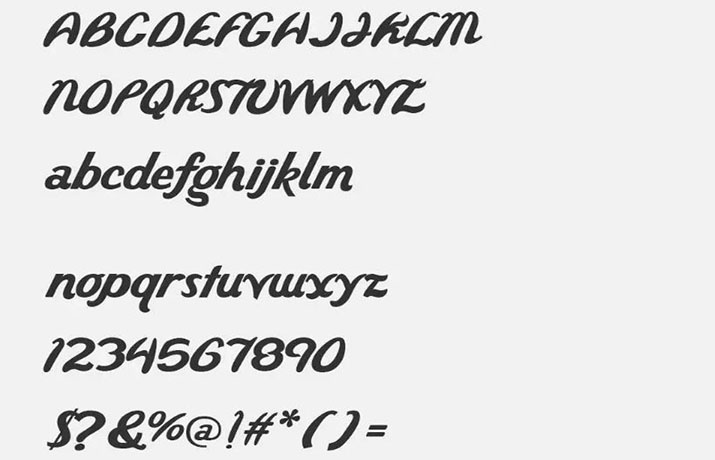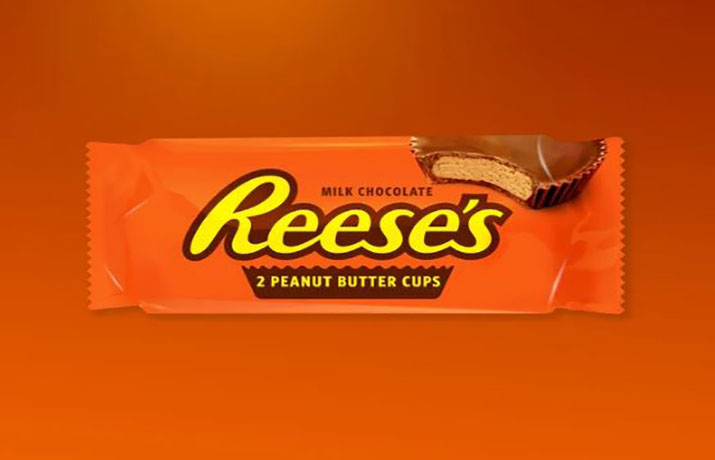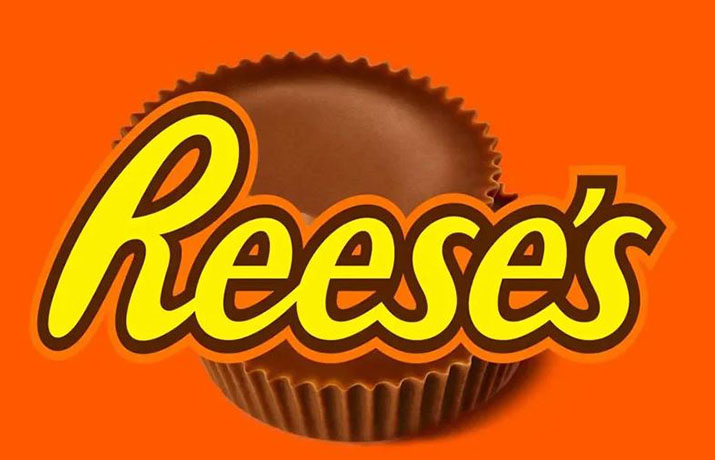
Reeses Font is a logo typeface basically, Reese’s is an American cupcake with milk, white, or dark chocolate and peanut butter cream. It is very tasty and popular all over the world.
Reese’s is a top-selling candy brand worldwide, with $3.1 billion in annual sales. “The font used in the logo is called Wild Ride Font. A script font family created by Michael Hageman.“
Reeses Font (Details)
| Font Name: | Reeses Font Family |
| Style: | Logo, Brush, Display |
| Font Designer: | Wild Ride Font |